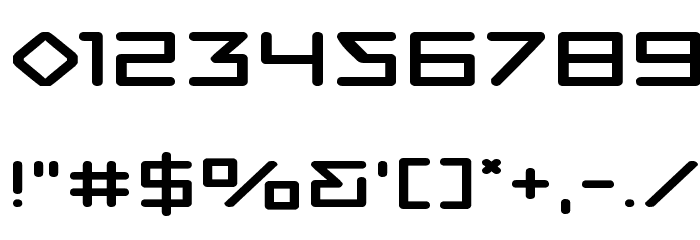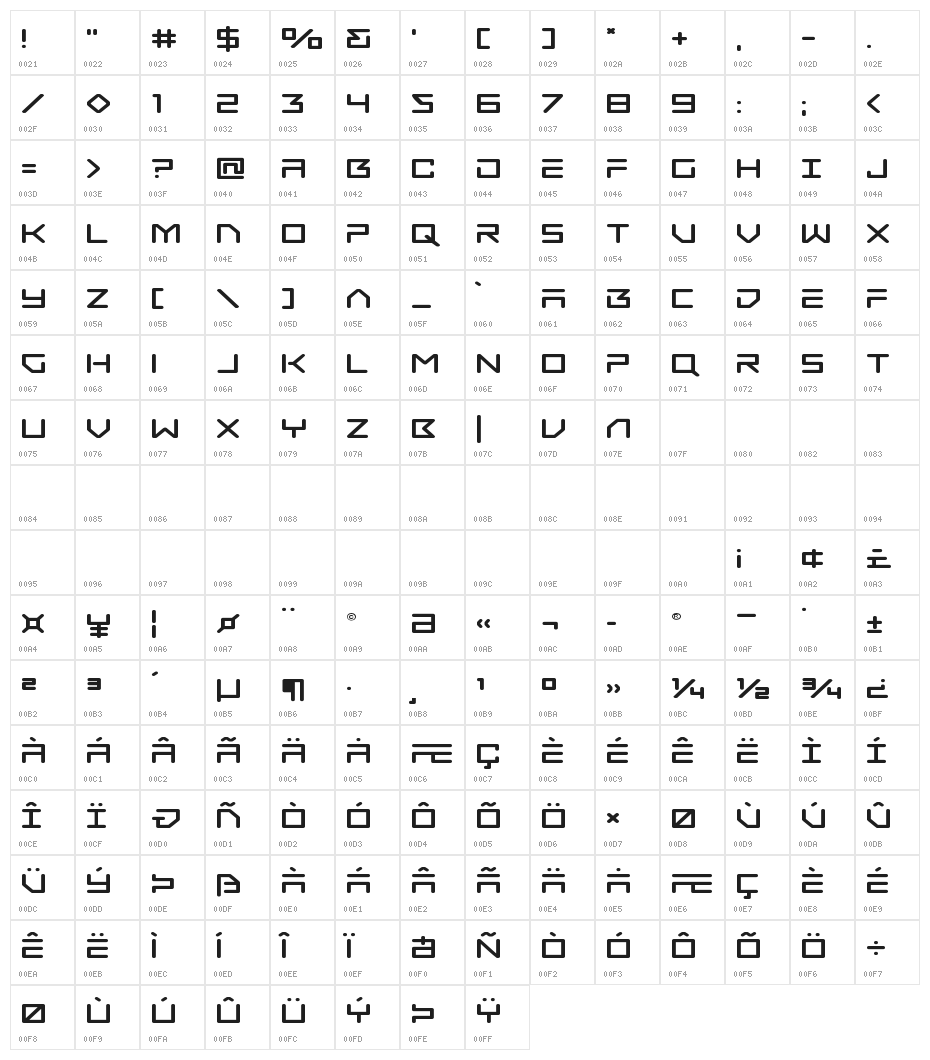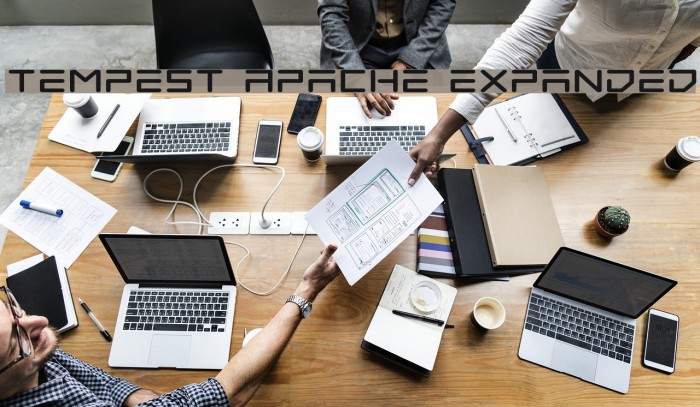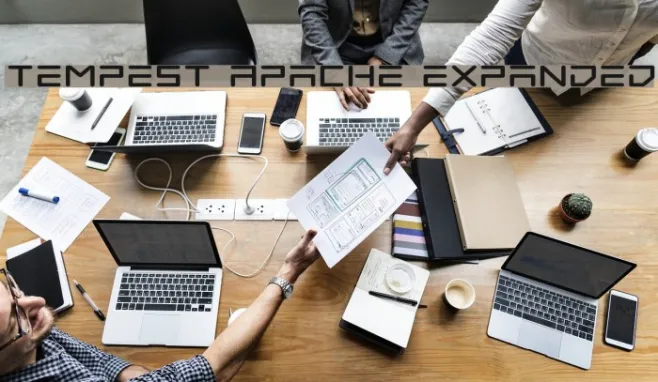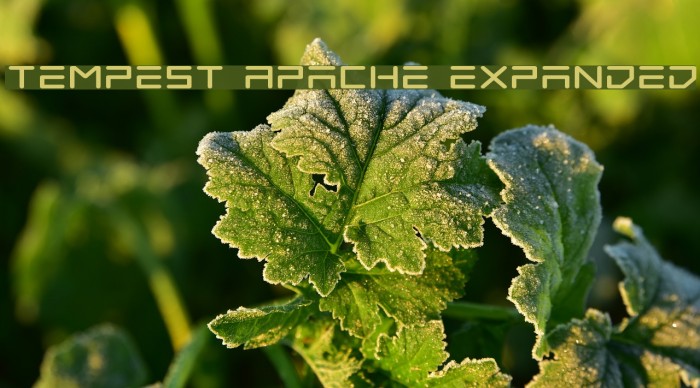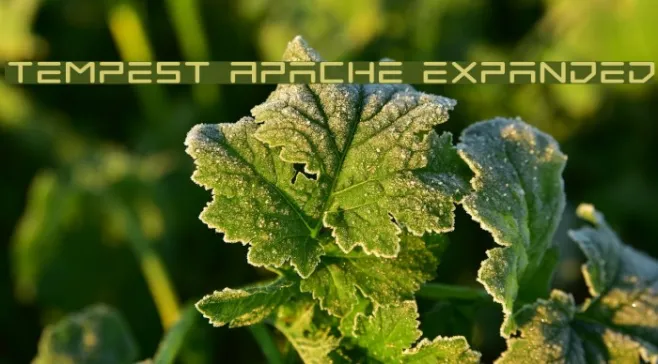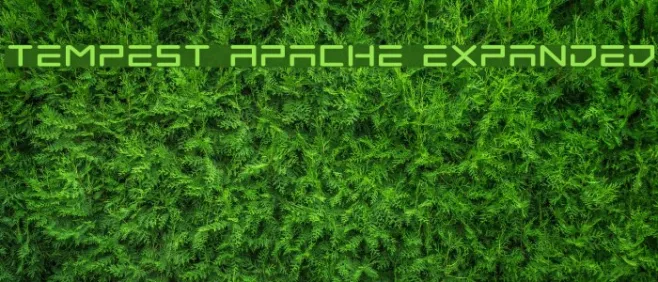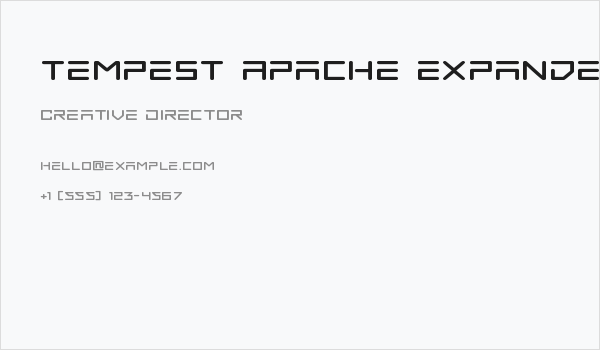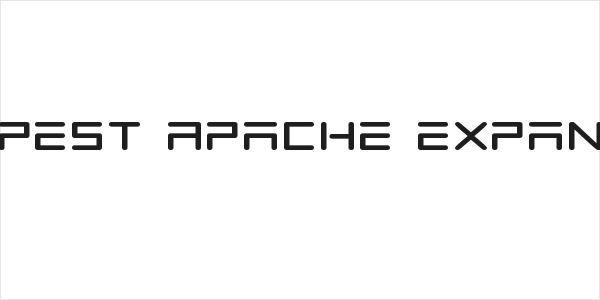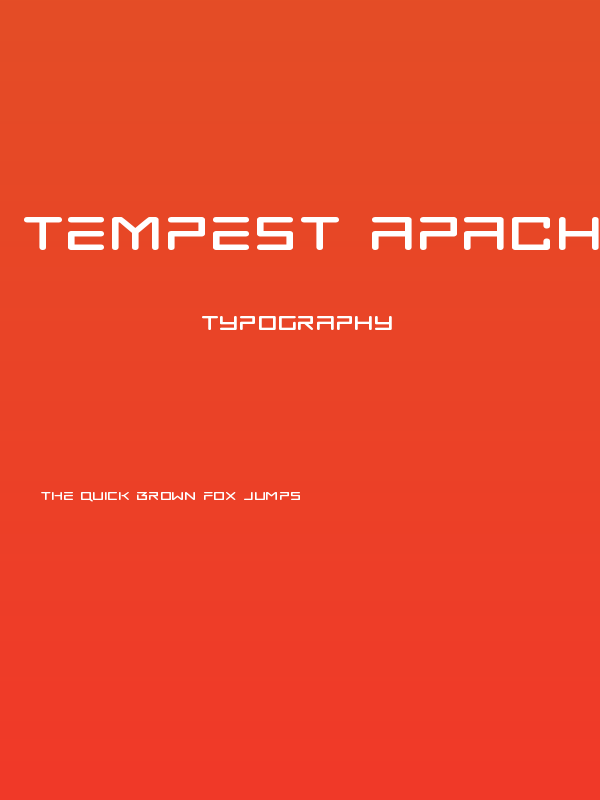
Tempest Apache Expanded Font
Tempest Apache Expanded Description
This font features a futuristic and geometric design, characterized by its bold and angular letterforms. The characters are constructed with a consistent stroke width, giving it a uniform appearance. The uppercase and lowercase letters share a similar structure, enhancing the cohesive look of the typeface. The numerals are distinct and maintain the geometric theme, making them easily distinguishable. Special characters are designed to match the overall aesthetic, ensuring a seamless integration with the rest of the font. The expanded width of the characters provides a spacious feel, making it suitable for display purposes where readability and impact are essential.